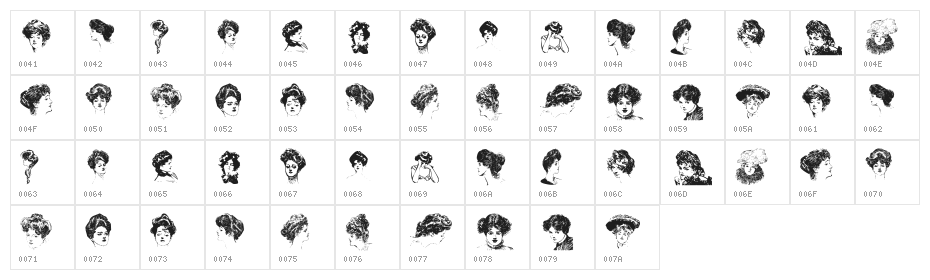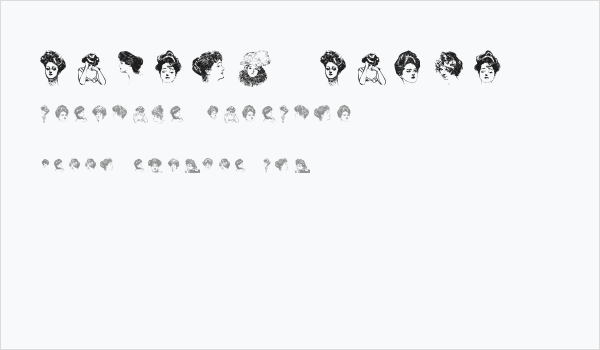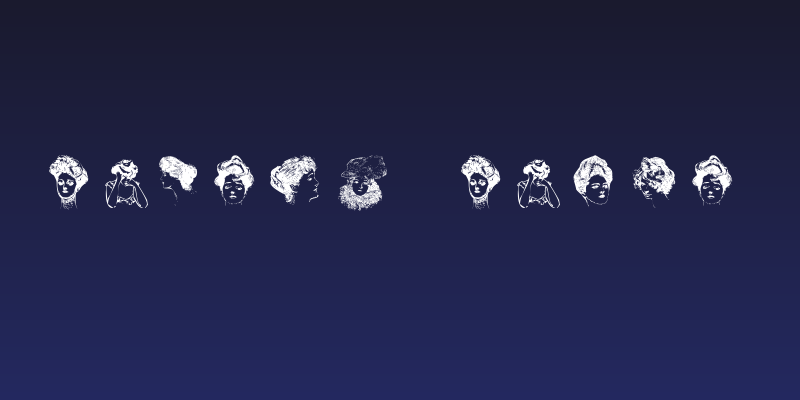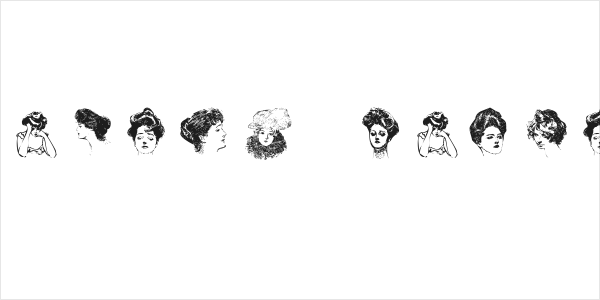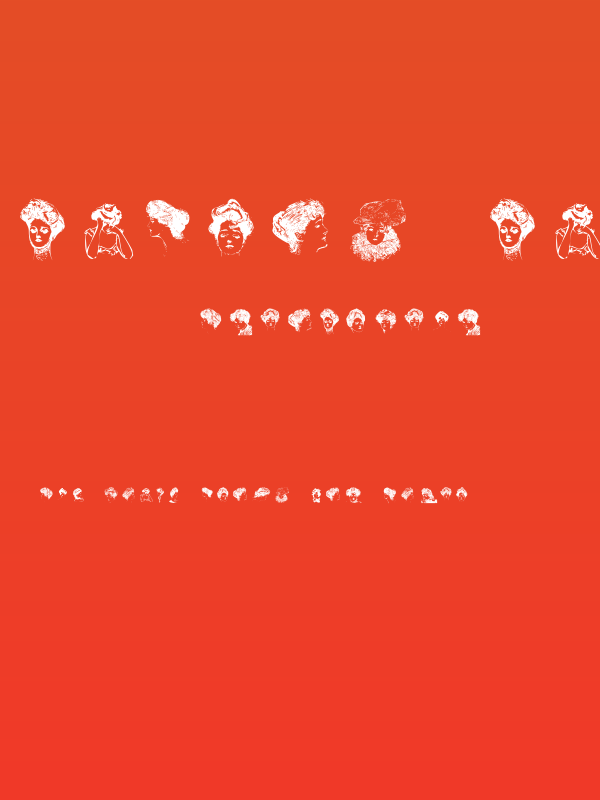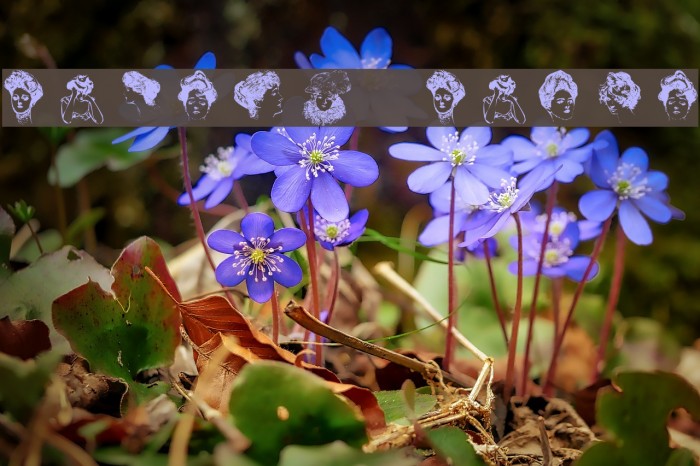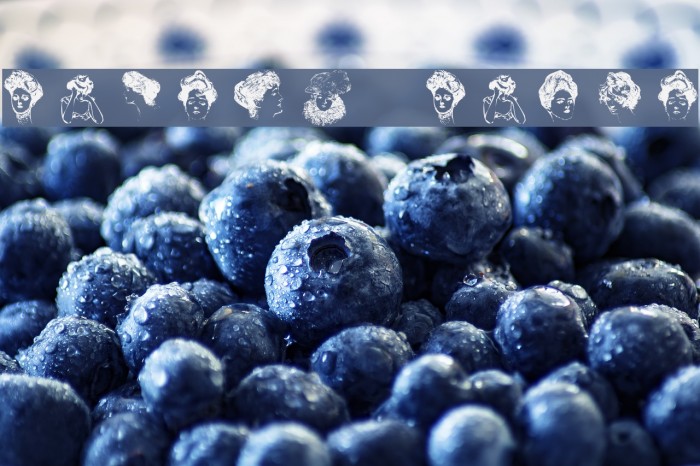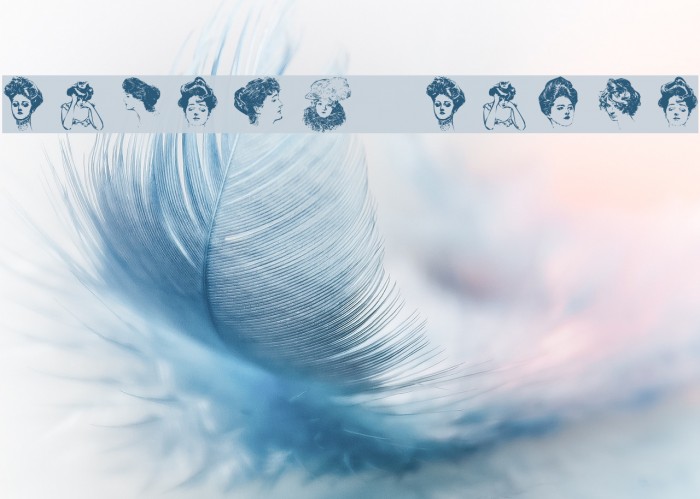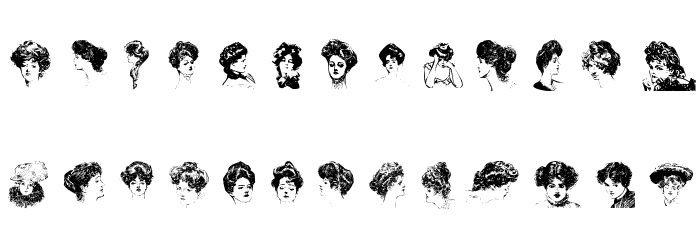
Gibson Girls Font
Gibson Girls Description
This set features detailed, vintage-style illustrations of women's heads and hairstyles, reminiscent of early 20th-century portraiture, with each character represented by a unique drawing rather than a traditional letterform.
| Overall Style | Vintage, Decorative |
| Use Case | Decorative elements, Borders, Themed artwork |
| Proposed Projects | Posters, invitations, scrapbooking, decorative borders, vintage-themed designs, and artistic projects. |